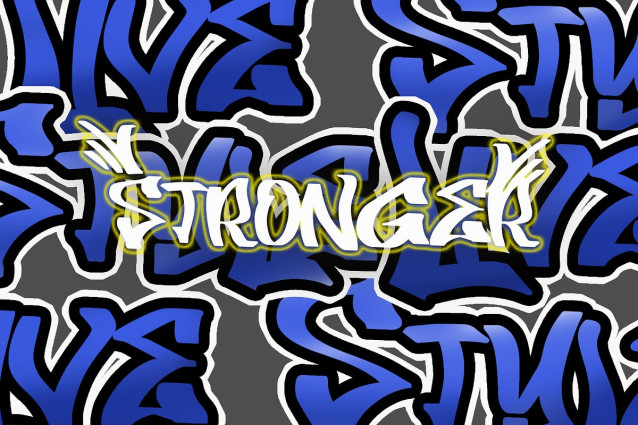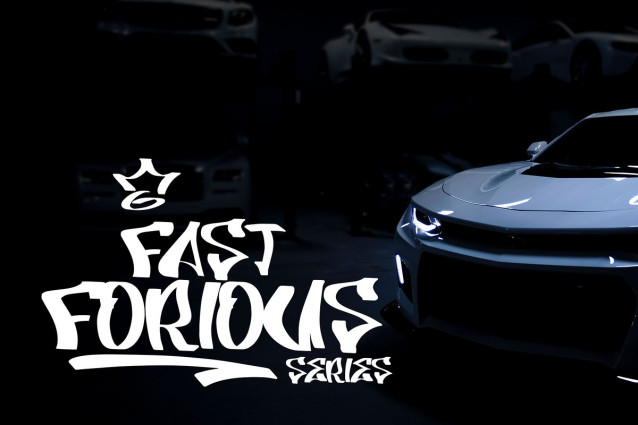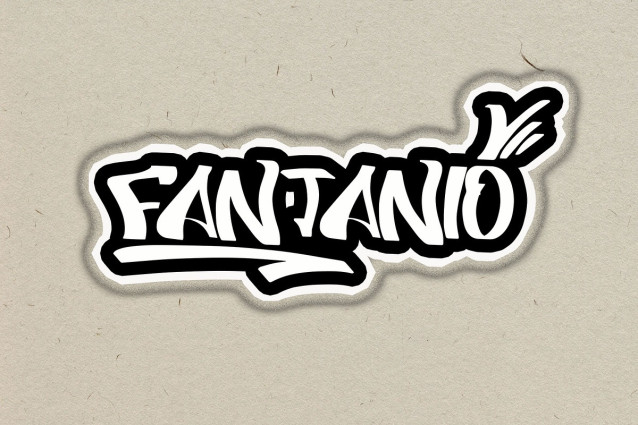
Fantanio Graffiti Font
Fantanio Graffiti Font is a bold graffiti font with a natural handbrush style, designed to add a fresh, urban edge to your designs. Its unique character shapes bring raw, expressive energy, making FANTANIO perfect for logos, streetwear, posters, and any project needing a creative and impactful look.